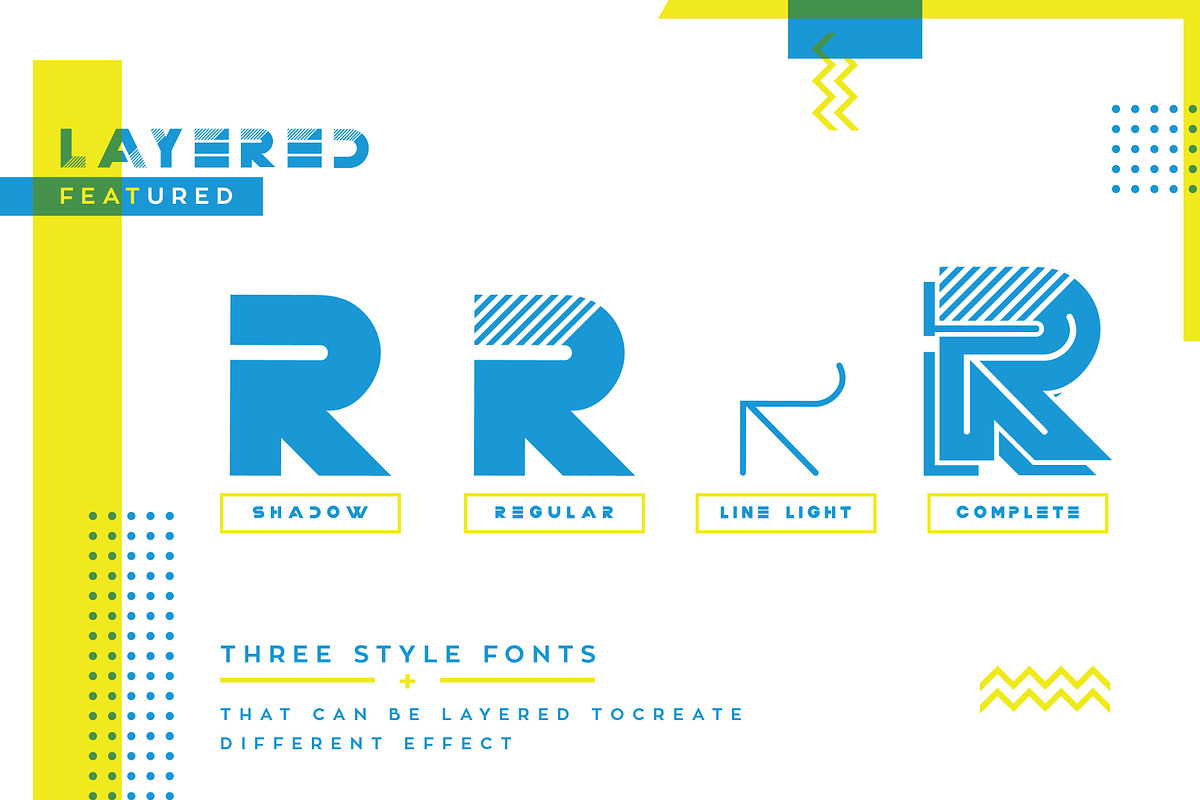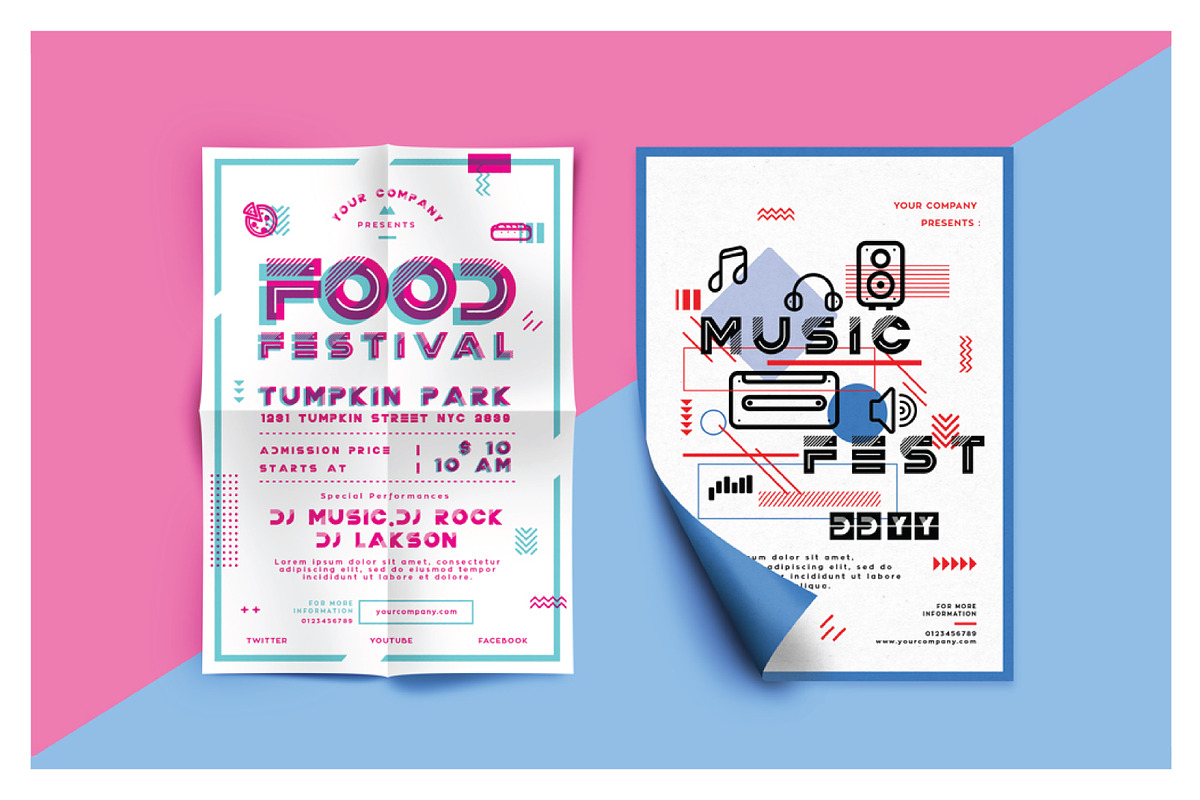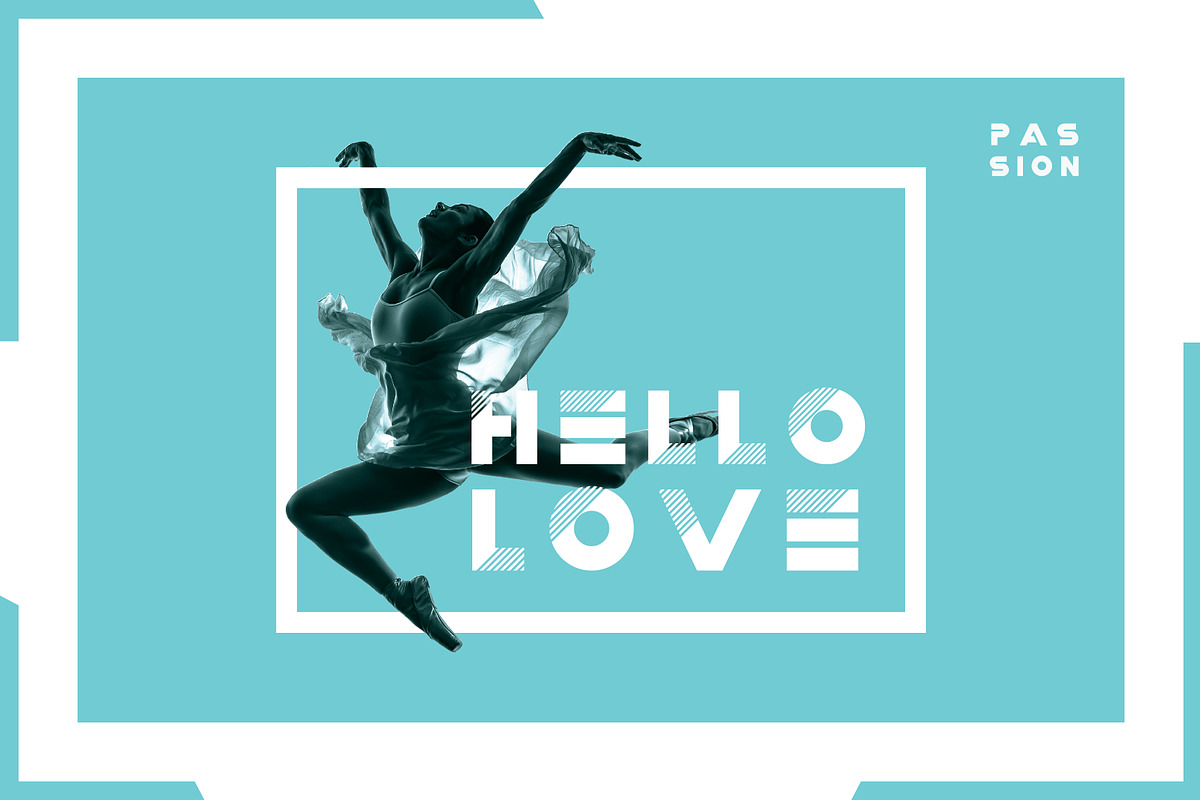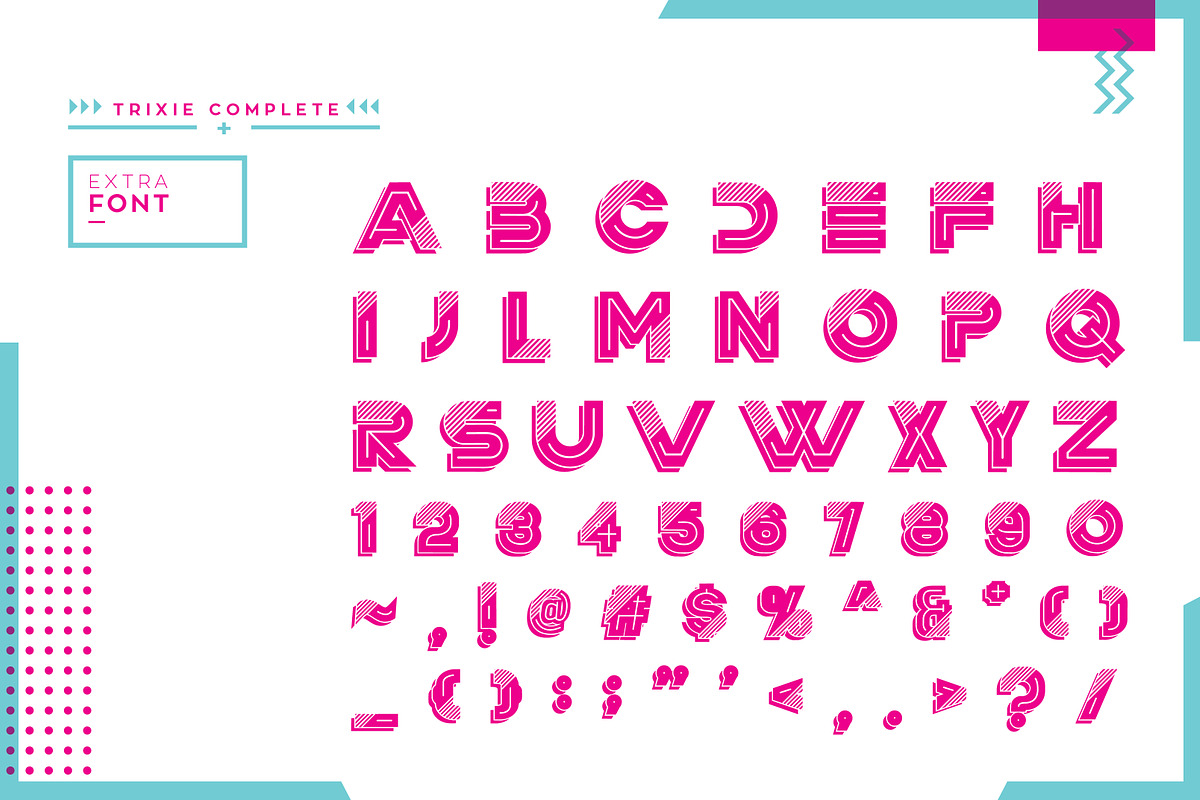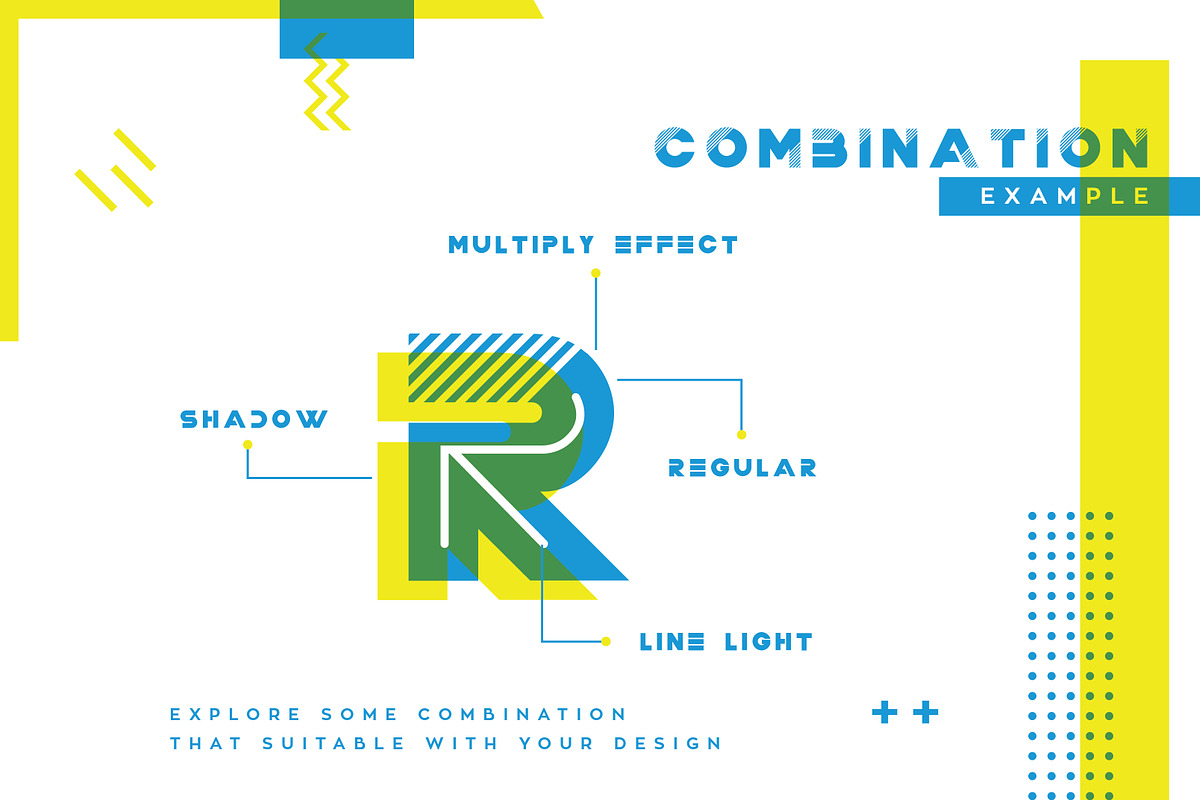
Trixie | A Layered Multiply Typeface
Trixie | A Layered Multiply Typeface by Drizy is a font selected for branding, posters, packaging, typography.
- Trixie comes with a full set shadow, regular, line light and completed layer.
- Trixie is a modern, futuristic, minimal and clean font layer with upper & lower case characters, multilingual letters, numbers, and punctuat